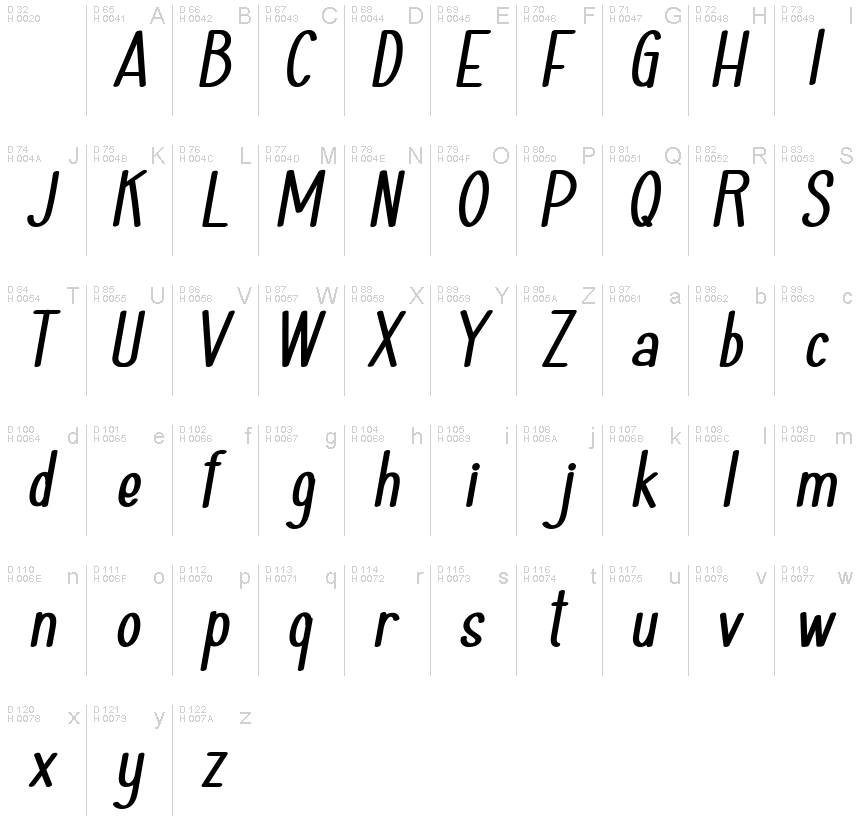
Haiesley Sans Bold Italic is a display font that carries a sleek condensed profile with an assertive slant, crafted by RaisProject. Its bold strokes convey confidence, while the italicized form adds dynamism, suggesting forward motion and modernity. The font's distinctive character shapes and tight letter spacing create a contemporary aesthetic that's both striking and readable.
The stylish demeanor of Haiesley Sans Bold Italic makes it an excellent choice for branding, advertising headlines, and any design space where a commanding presence is required. Its condensed form maximizes impact in tight spaces, making it ideal for sleek logos or attention-grabbing posters that need to make a statement without the luxury of expansive canvas.